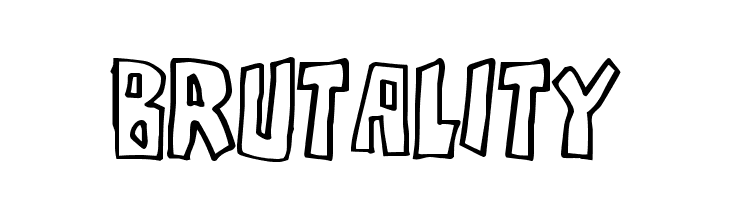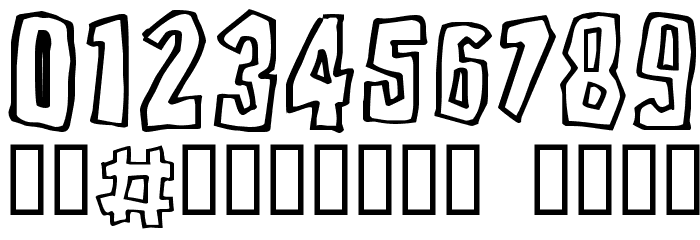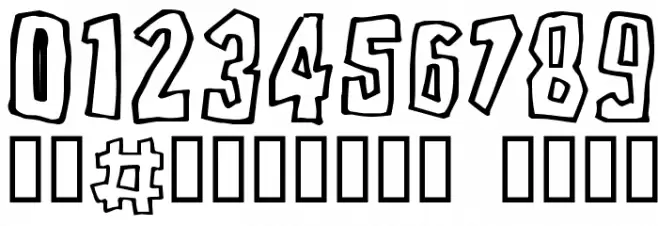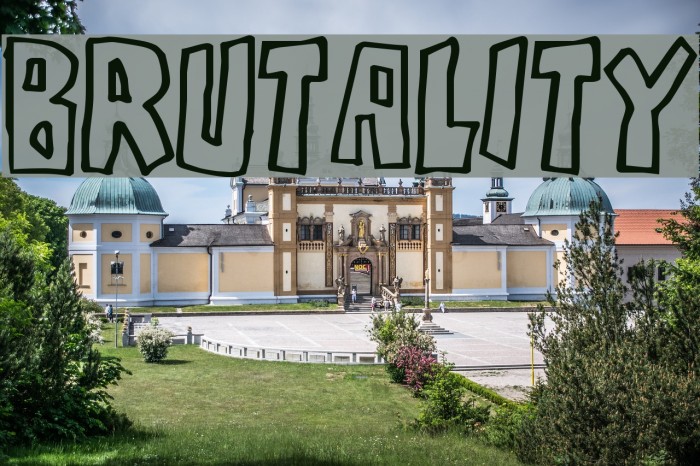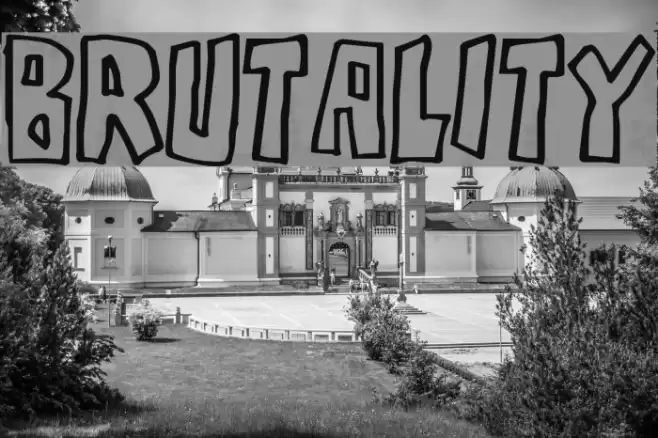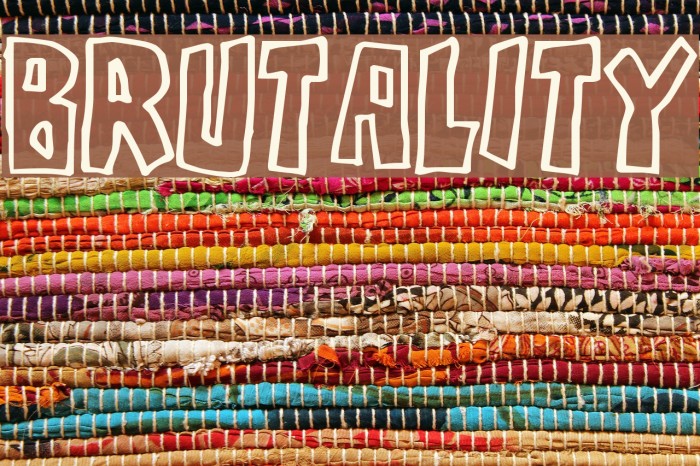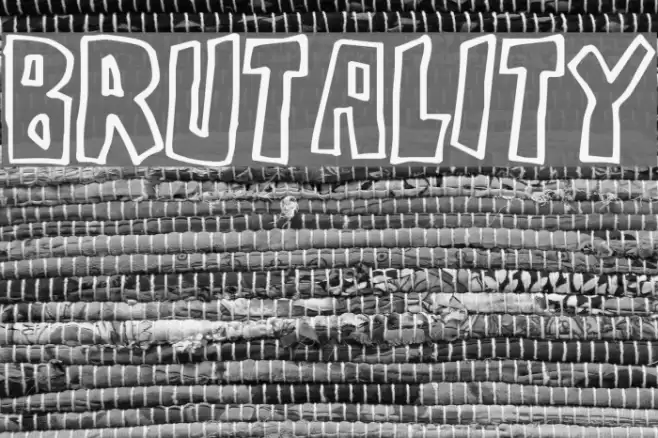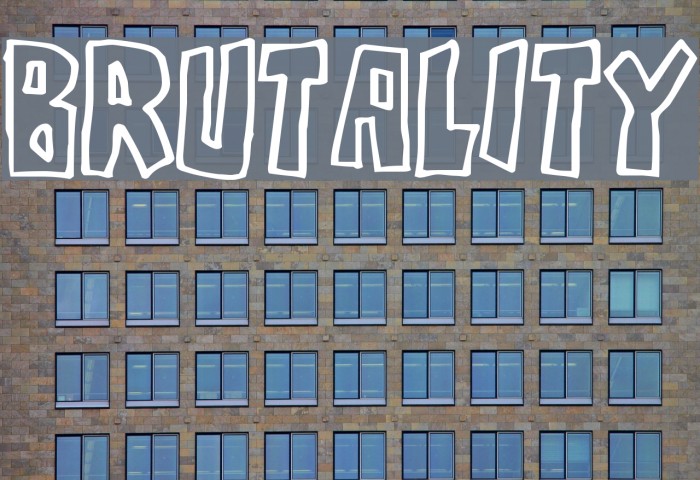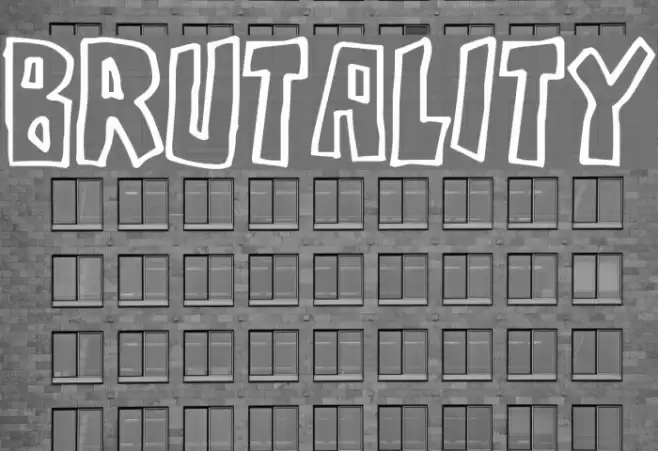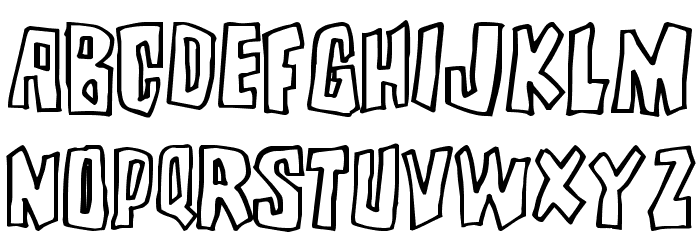
Brutality Font
Brutality Description
This font features a bold, hand-drawn style with a playful and slightly chaotic appearance. The characters are outlined with a thick, uneven stroke, giving them a rugged and dynamic look. Each letter and number has a unique, irregular shape, contributing to the font's overall energetic and informal vibe. The uppercase and lowercase letters maintain a consistent style, while the numbers and special characters follow the same bold and quirky design. This font is ideal for projects that require a fun and eye-catching aesthetic.
| Overall Style | Playful, Energetic, Informal |
| Use Case | Headlines, Posters, Branding |
| Proposed Projects | Perfect for comic books, children's posters, playful branding, and creative event invitations. |